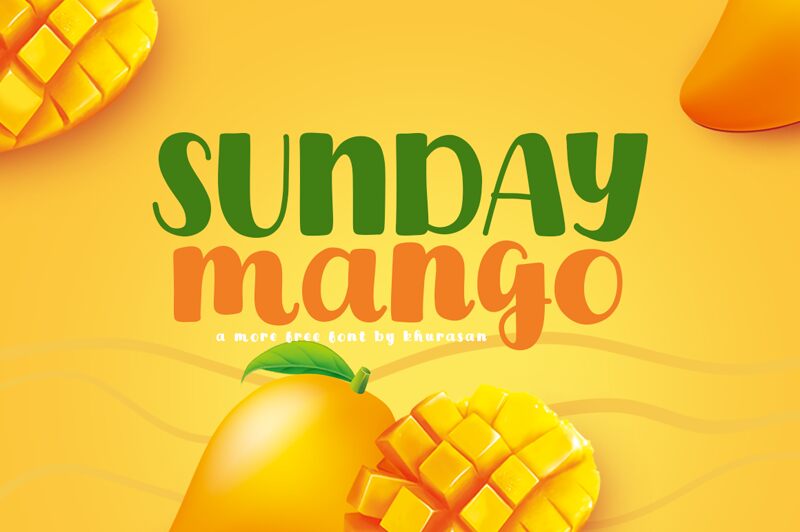
Sunday Mango
Sunday Mango, a creation by Khurasan, is a playful and vibrant display font.
With its extra-bold weight and cartoon style, this font is perfect for children's book covers, animated movie titles, or even eye-catching signage. Its distinctive curves and exaggerated letterforms bring an energetic and whimsical feel to any project. Sunday Mango will surely add a splash of fun to your designs, making them stand out from the crowd.